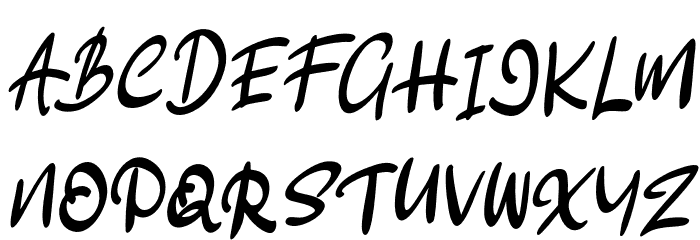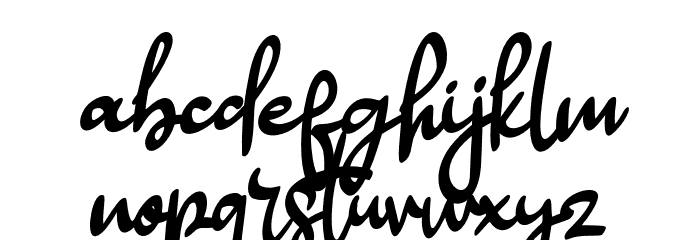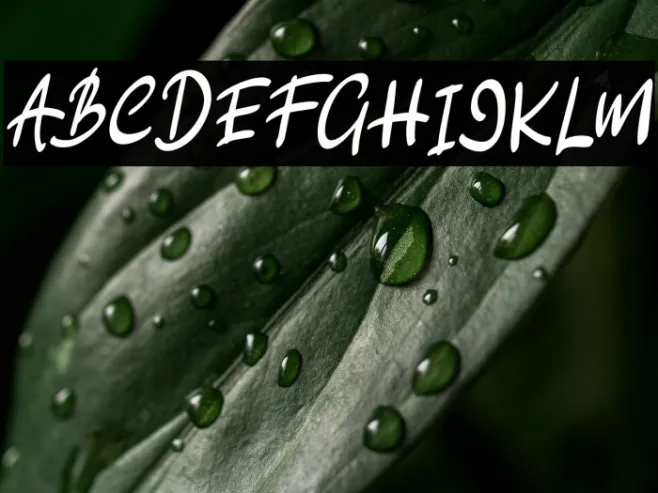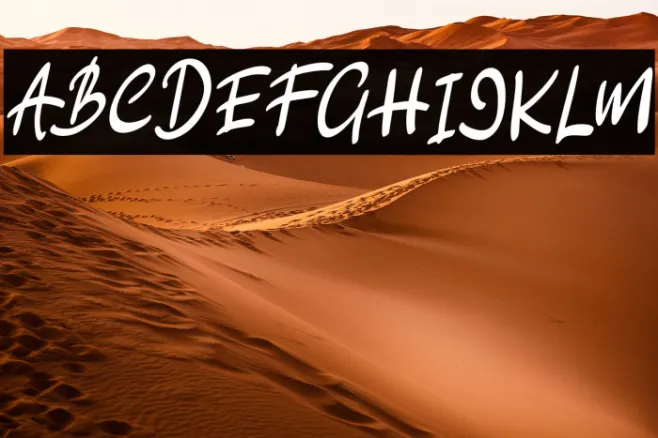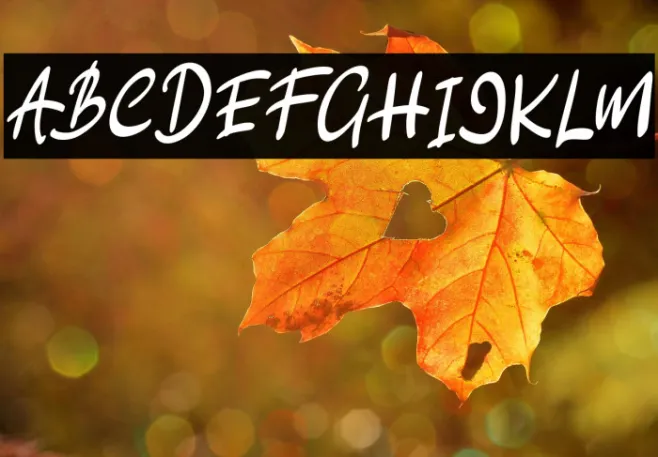
HellowFREE Font
This font features a bold and dynamic script style with a handwritten appearance. The letters are connected, giving it a fluid and cohesive look. The uppercase letters are slightly larger and more pronounced, while the lowercase letters maintain a consistent flow. The strokes are thick, providing a strong presence on the page. This font is ideal for creating a personal and informal feel, suitable for creative projects that require a touch of elegance and individuality. The special characters are integrated seamlessly, maintaining the overall aesthetic of the font.
A bold, dynamic script font with a handwritten style.
- Font: HellowFREE
- Proposed Projects: Ideal for invitations, greeting cards, logos, and branding materials that require a personal touch.
- Category: Script
- Character Spacing: Tight
- Use Case: Logos, Headlines, Invitations